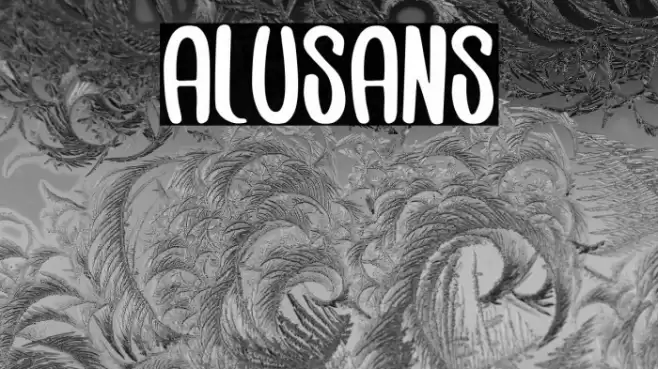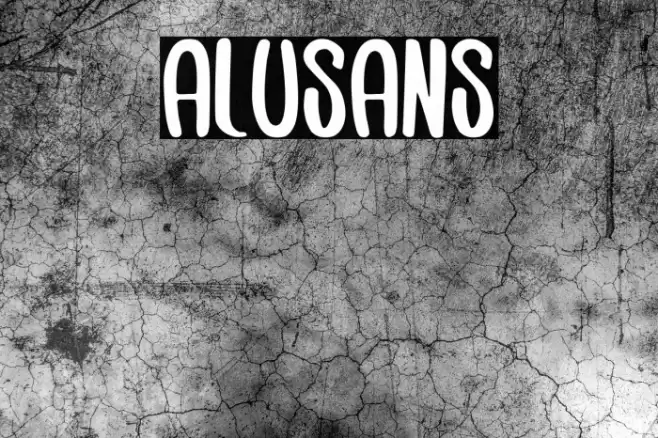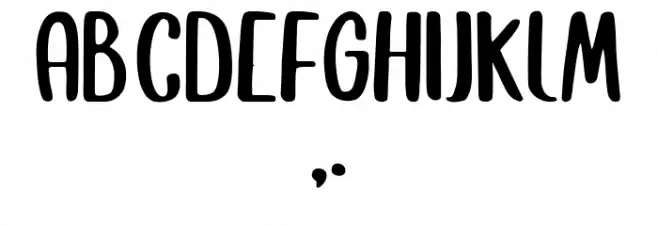
Alusans Font
Alusans Description
This font features a bold and playful style with rounded edges and a slightly condensed form. The letters are uniformly thick, providing a consistent and cohesive look. The uppercase characters are tall and assertive, while the lowercase letters maintain a friendly and approachable appearance. The overall design is modern and energetic, making it suitable for projects that require a lively and engaging typeface. The font's unique character shapes add a touch of whimsy, making it ideal for creative and informal applications.
A bold, playful font with rounded edges and a modern, energetic style from Regular fonts.
- Proposed Projects: Ideal for children's books, playful branding, posters, and social media graphics.